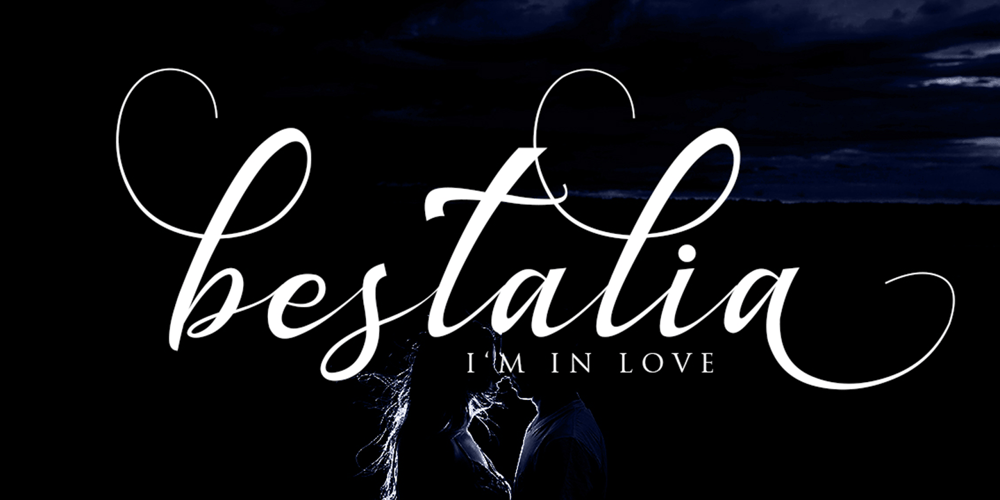
Bestalia Font Family was designed by Sarwo Edhi Prayitno and published by Haksen. Bestalia contains 1 styles and family package options. Introducing the elegant new “Bestalia Script” For those of you who are needing a touch of elegance and modernity for your designs, this font was created for you!Bestalia was built with OpenType and True Type features and includes beginning and ending swashes, alternate swash characters for most lowercase letters, numbers, punctuation, alternates, ligatures and it also supports other languages :). every single letters have been carefully crafted to make your text looks beautiful. With modern script style this font will perfect for many different project ex: photography, watermark, quotes, blog header, poster, wedding, branding, logo, fashion, apparel, letter, invitation, stationery, etc.Thanks so much for checking out my shop!All the best,Haksen